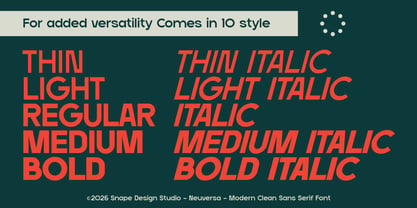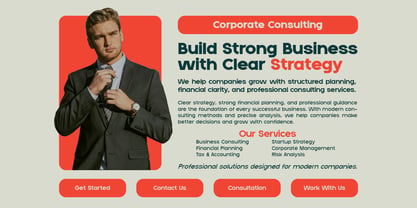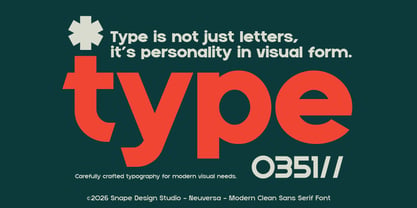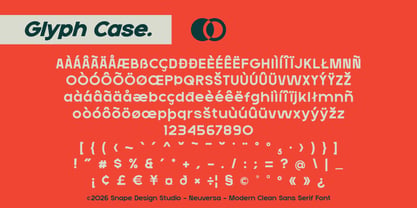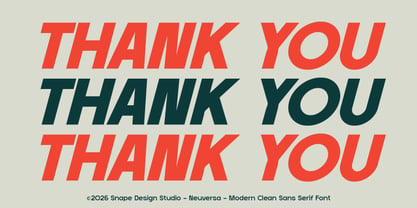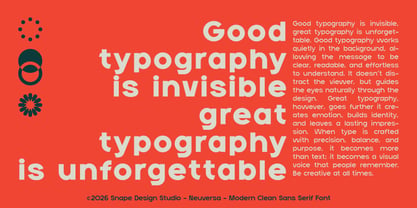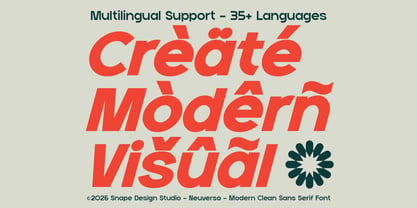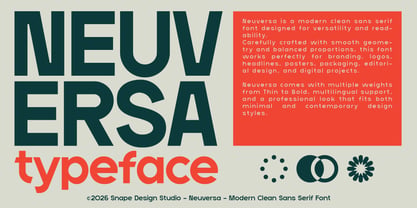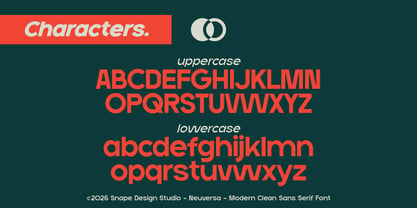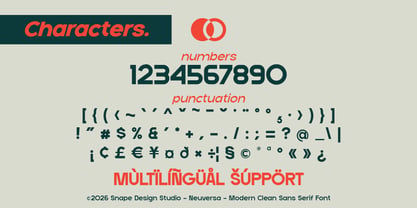
Neuversa
by snapedsgn
The Neuversa Font Family was designed by Ario Sabrang and published by snapedsgn. Neuversa contains 10 styles and family package options. More about this family
Neuversa is a modern clean sans serif font designed for versatility and readability. Carefully crafted with smooth geometry and balanced proportions, this font works perfectly for branding, logos, headlines, posters, packaging, editorial design, and digital projects. Neuversa comes with multiple weights from Thin to Bold, multilingual support, and a professional look that fits both minimal and contemporary design styles. Features: Thin, Light, Regular, Medium, Bold Clean & modern sans serif style Multilingual support (35+ languages) Uppercase & lowercase Numerals & punctuation Perfect for branding, logo, UI, poster, packaging, and editorial Neuversa is a great choice for designers who need a modern, elegant, and highly readable sans serif font. If you have any inquiries or need assistance, please feel free to contact us. We appreciate your support in enhancing your creative projects! Best Regards, Snape Design Studio.
Designers: Ario Sabrang
Foundry: snapedsgn